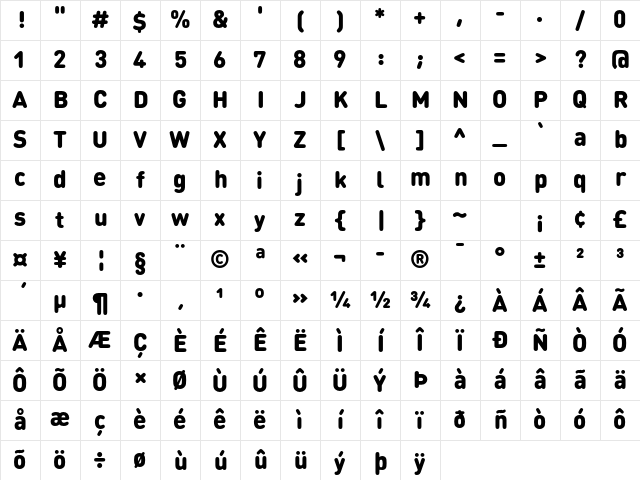
Complete DIN Round Pro Black glyph index. Displaying only characters natively supported by DIN Round Pro Black font.
DIN Round Pro softens its letterforms with rounded terminals, giving it an approachable, friendly quality that works well in consumer-facing and digital contexts.
Font Pairing: Pairs well with a rounded or humanist sans for body copy, maintaining the friendly tone without relying on DIN Round Pro to carry extended reading.
Pro Tip: Use DIN Round Pro for UI elements, app interfaces, and anywhere a friendly, approachable tone needs to be maintained without sacrificing clarity.